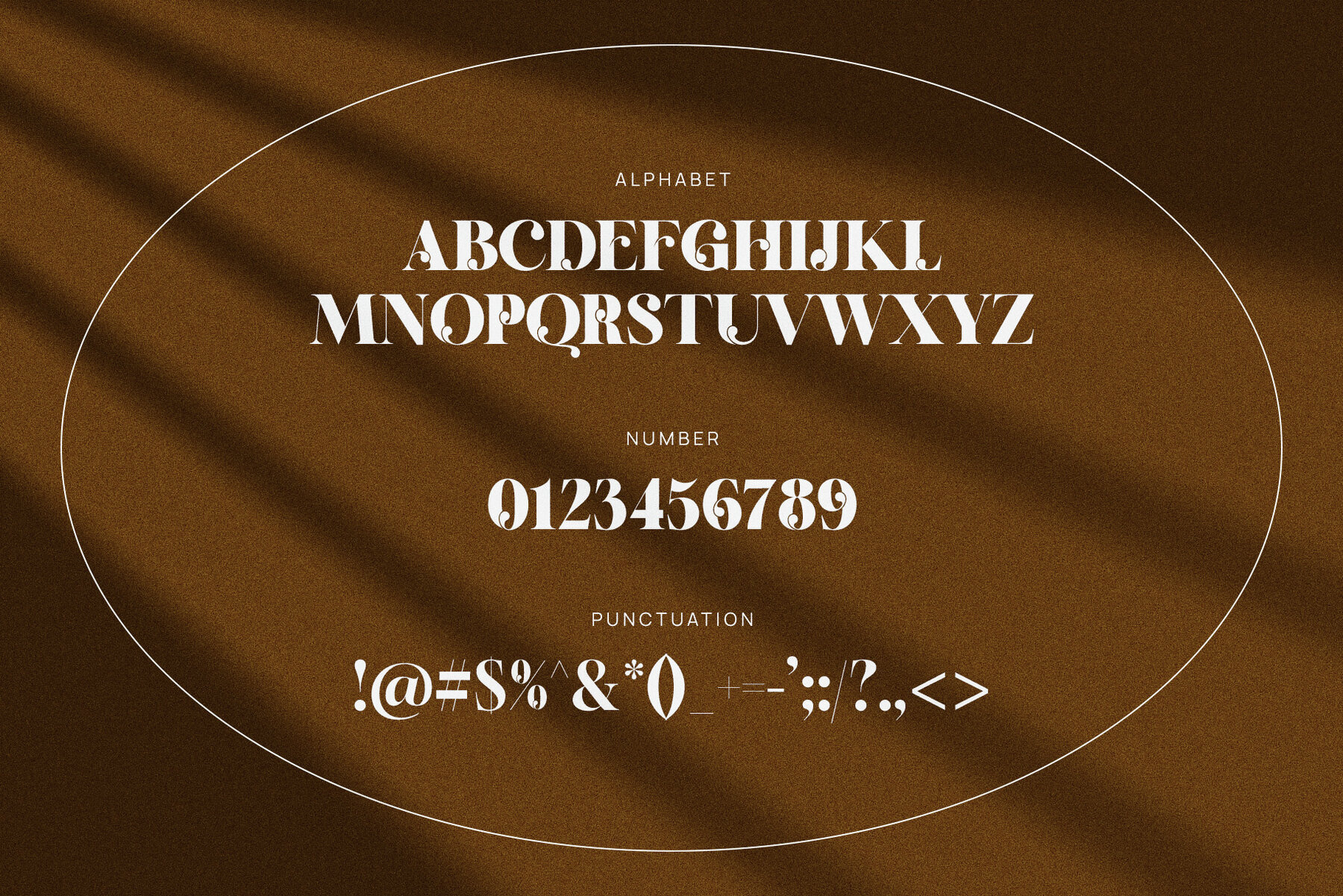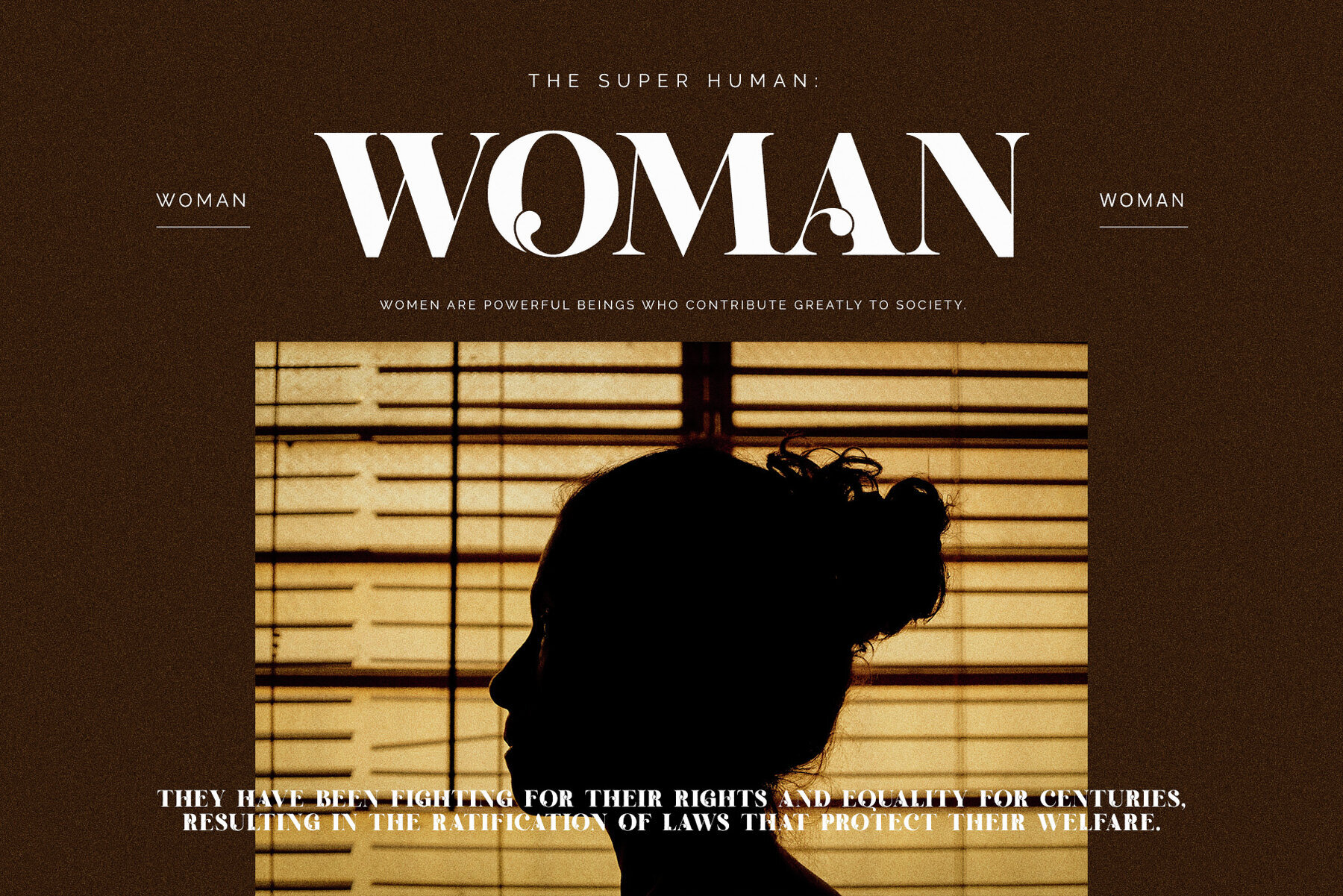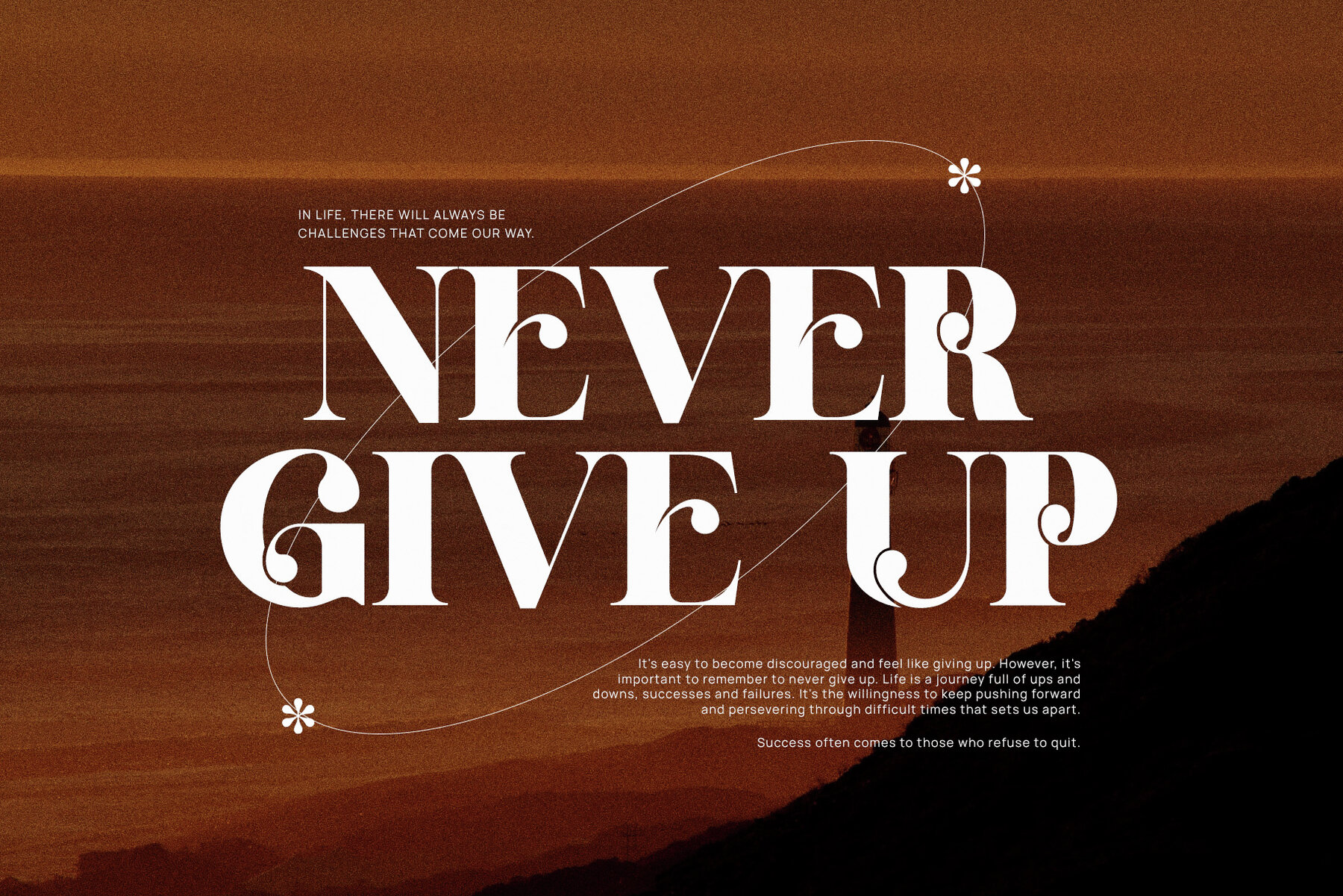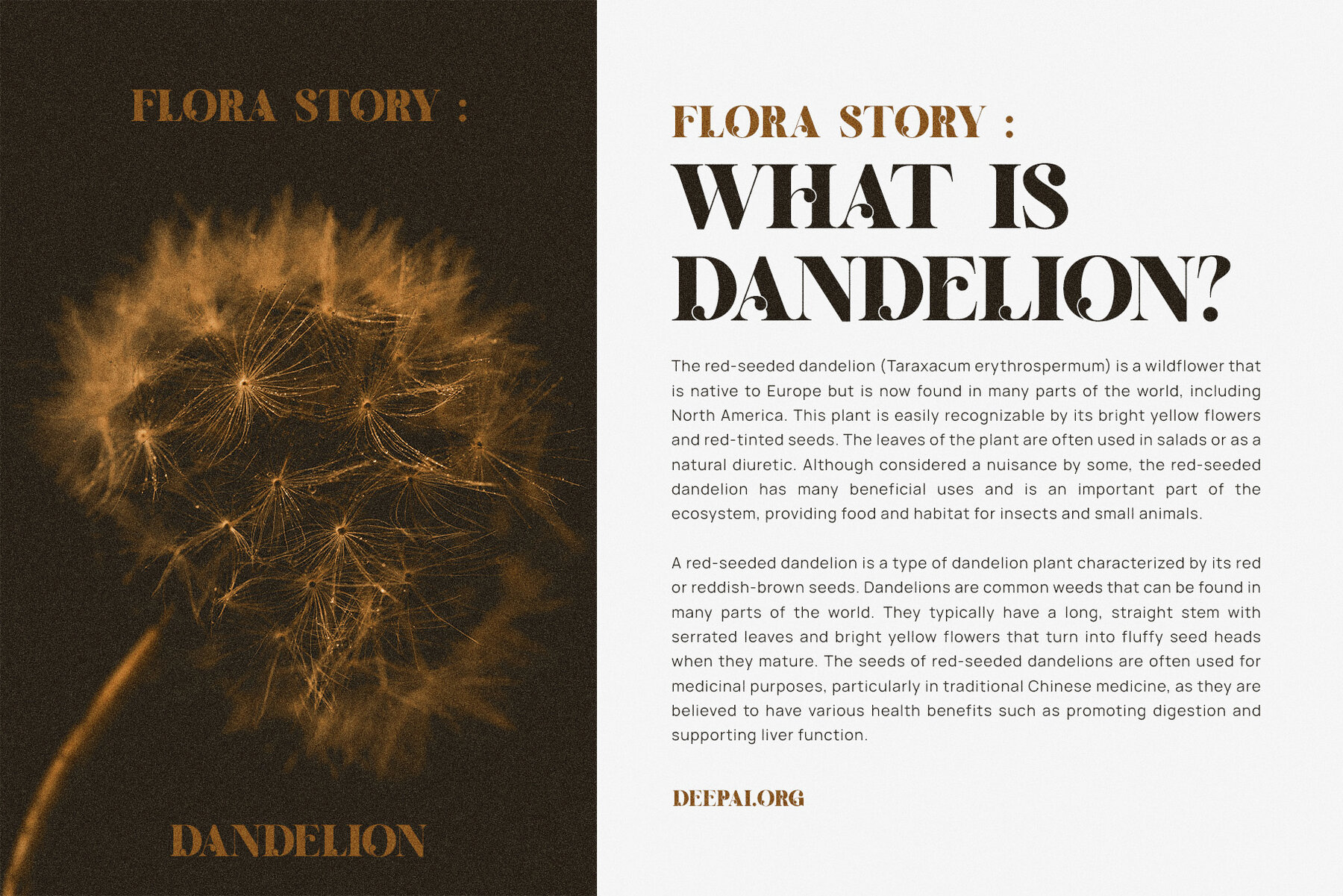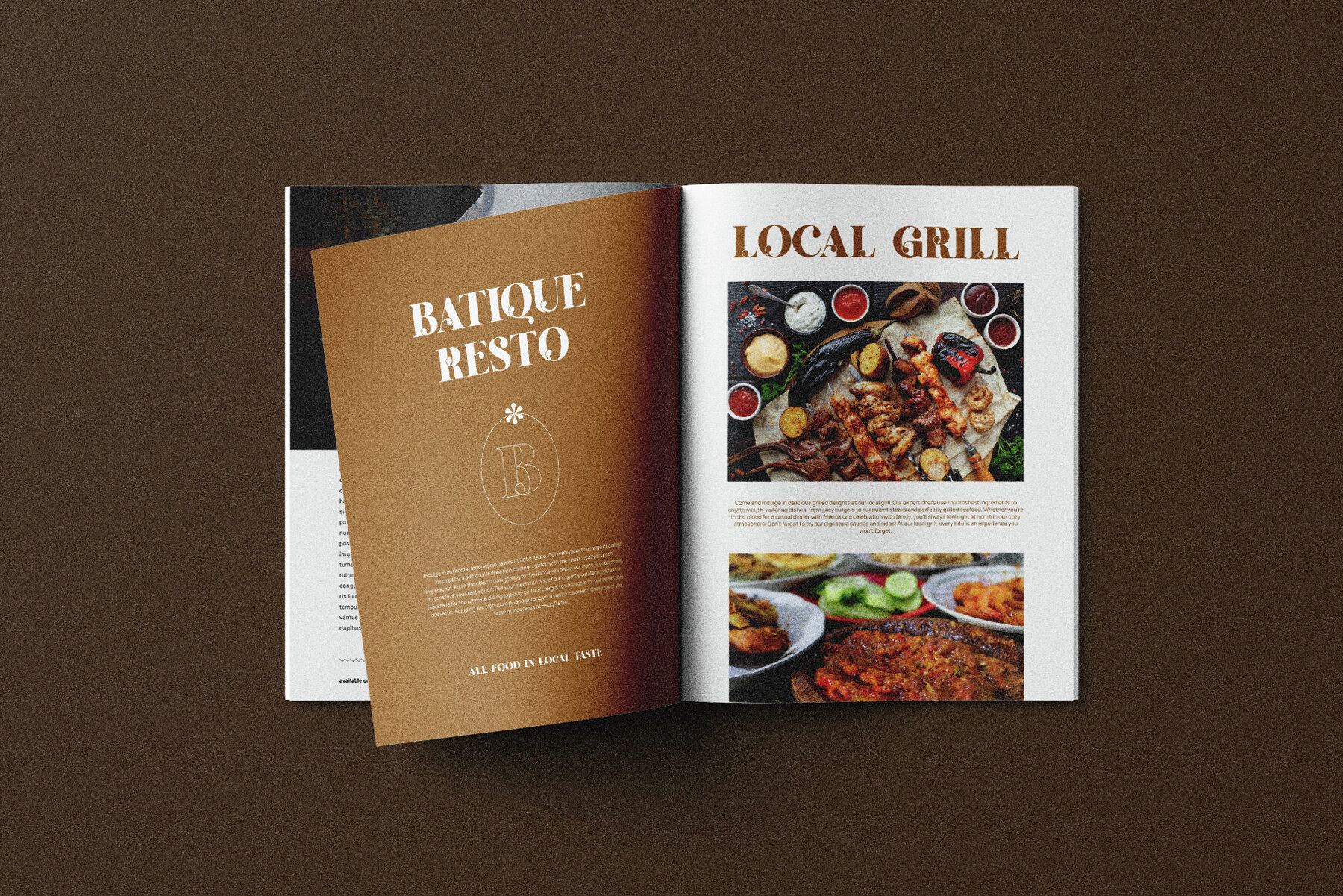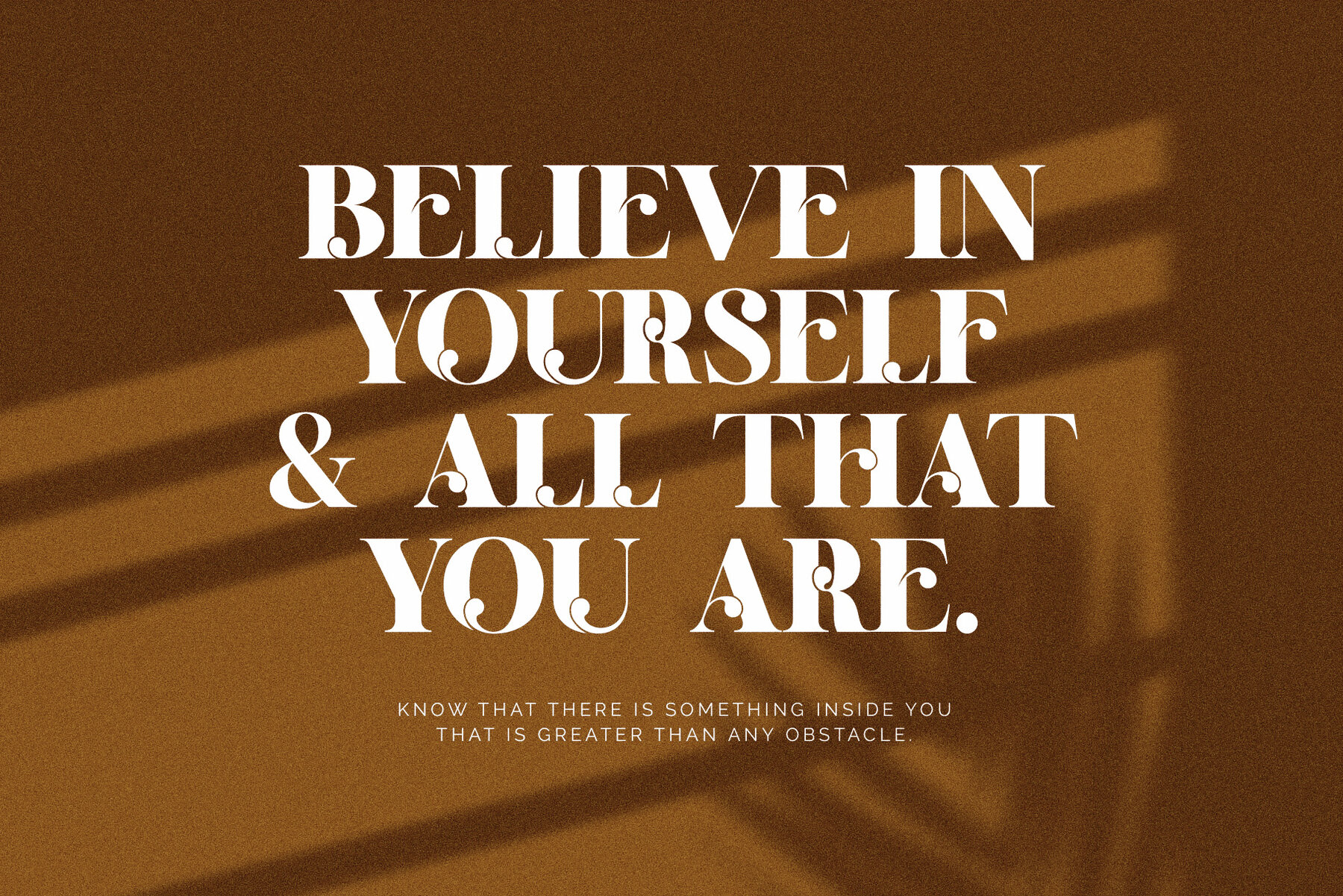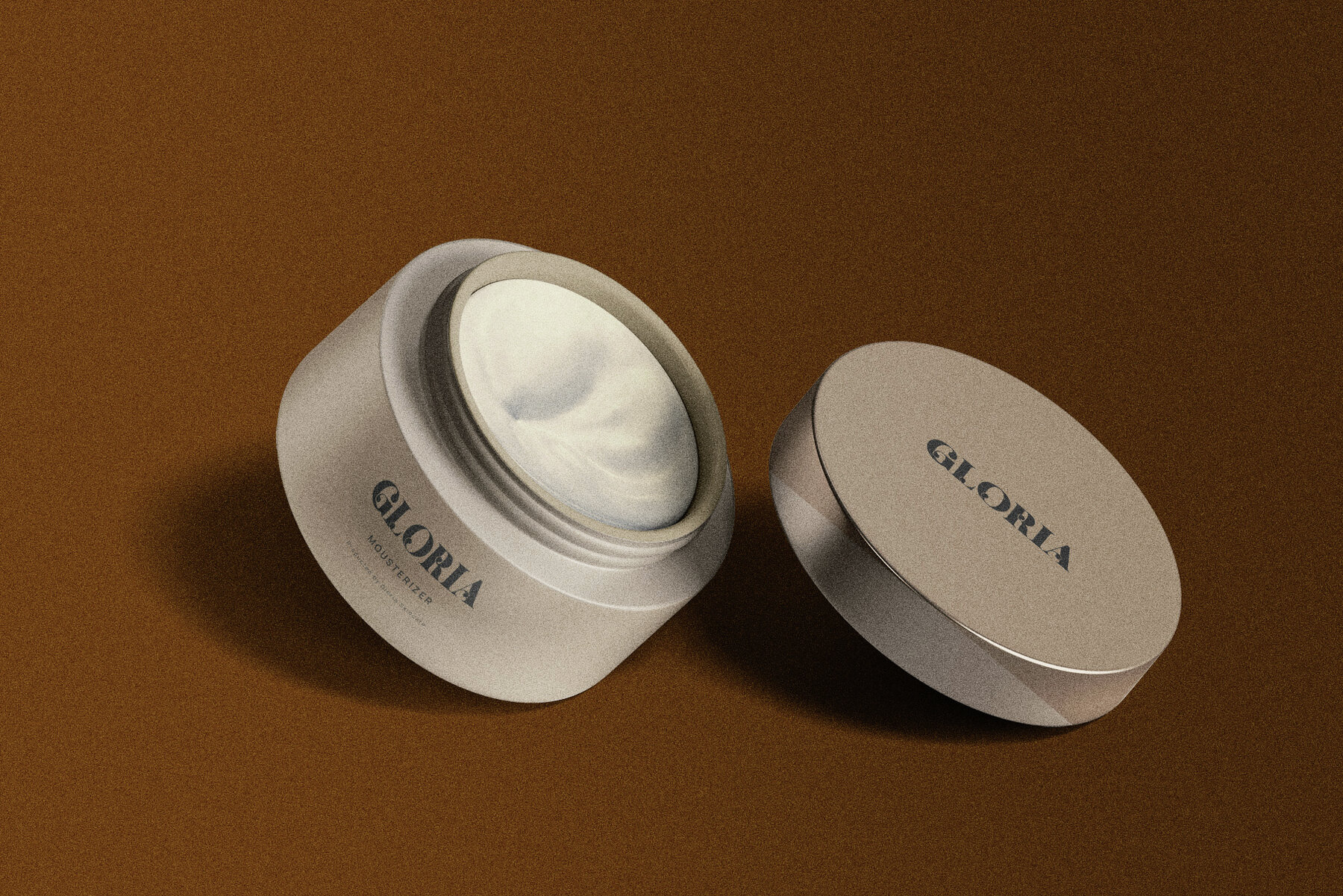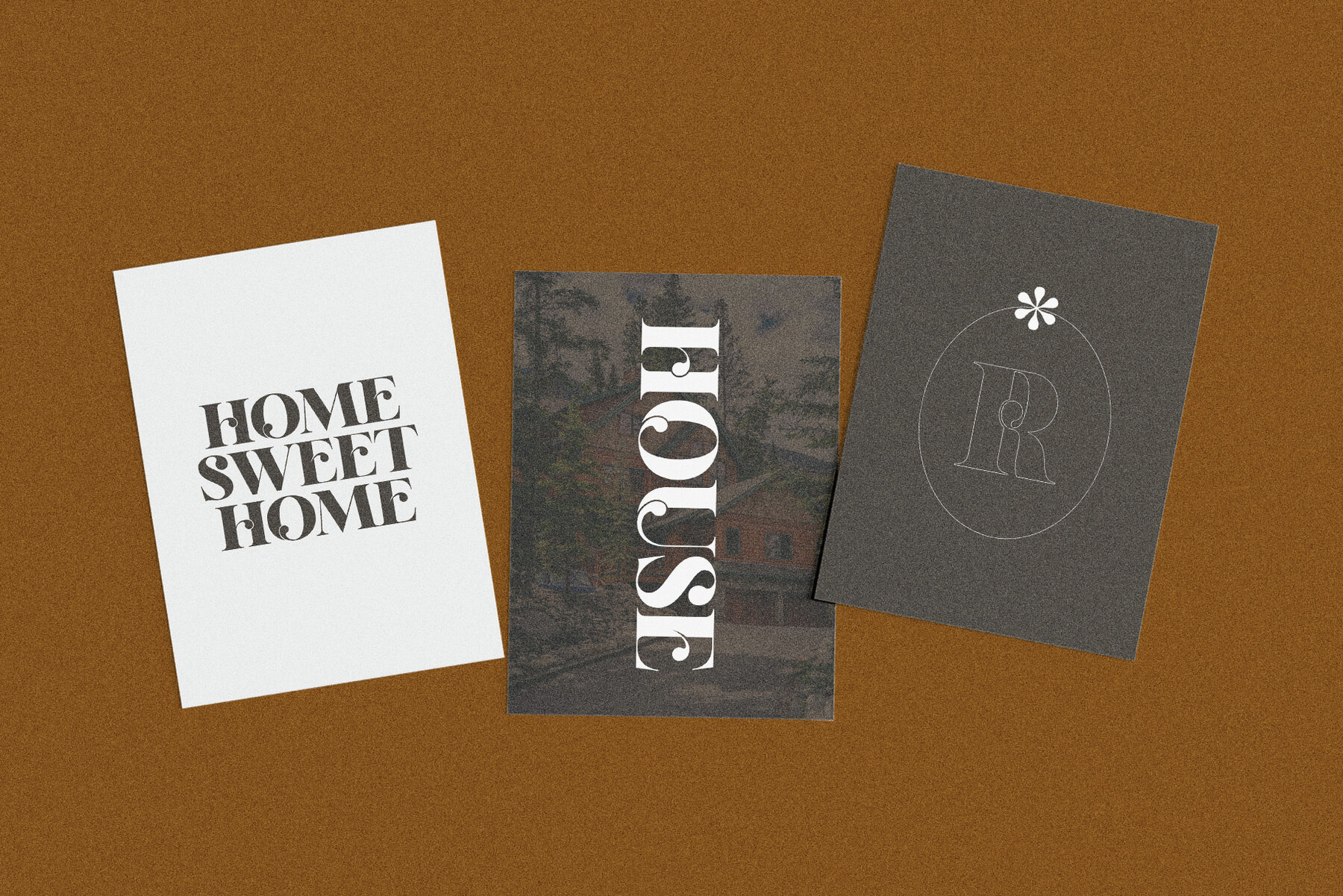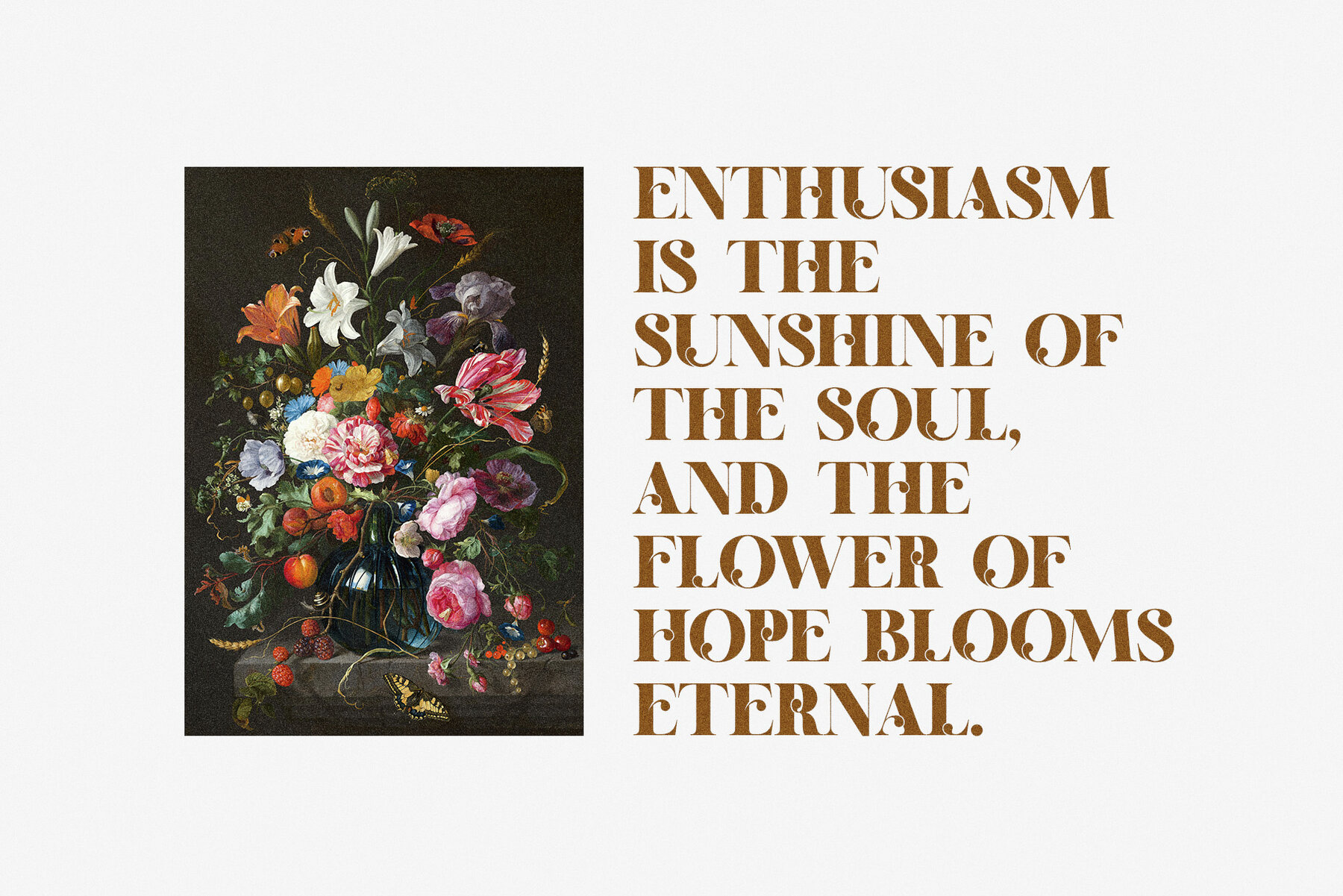
Gloria Font
Gloria Regular
Gloria is a distinctive and elegant font perfect for branding and logo designs. This serif typeface blends a classic and modern style, making it ideal for various applications including branding projects, wedding designs, social media posts, advertisements, product packaging, and much more. It offers a high level of readability, ensuring your messages are conveyed effectively. We recommend using Adobe Illustrator or Adobe Photoshop for best results. Should you have any questions or need assistance, feel free to reach out to us. We are happy to help!Gloria: A Sophisticated Serif for Elegant Branding